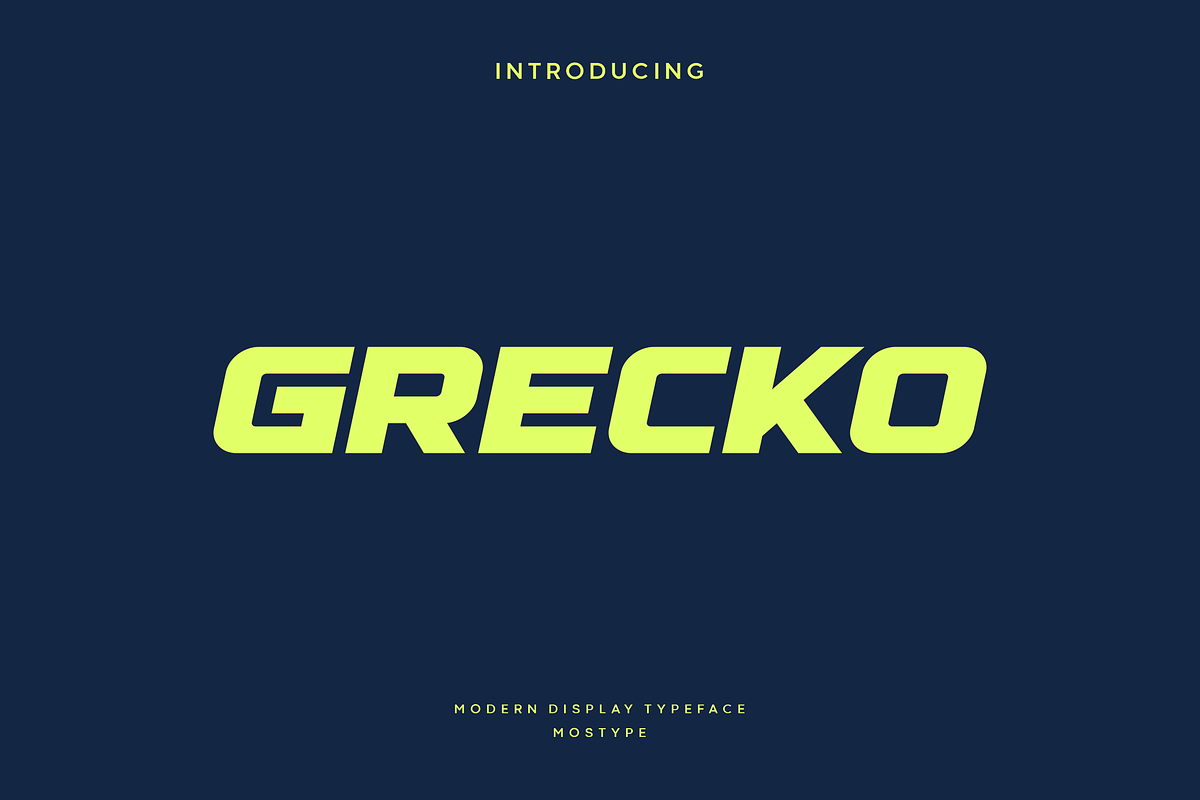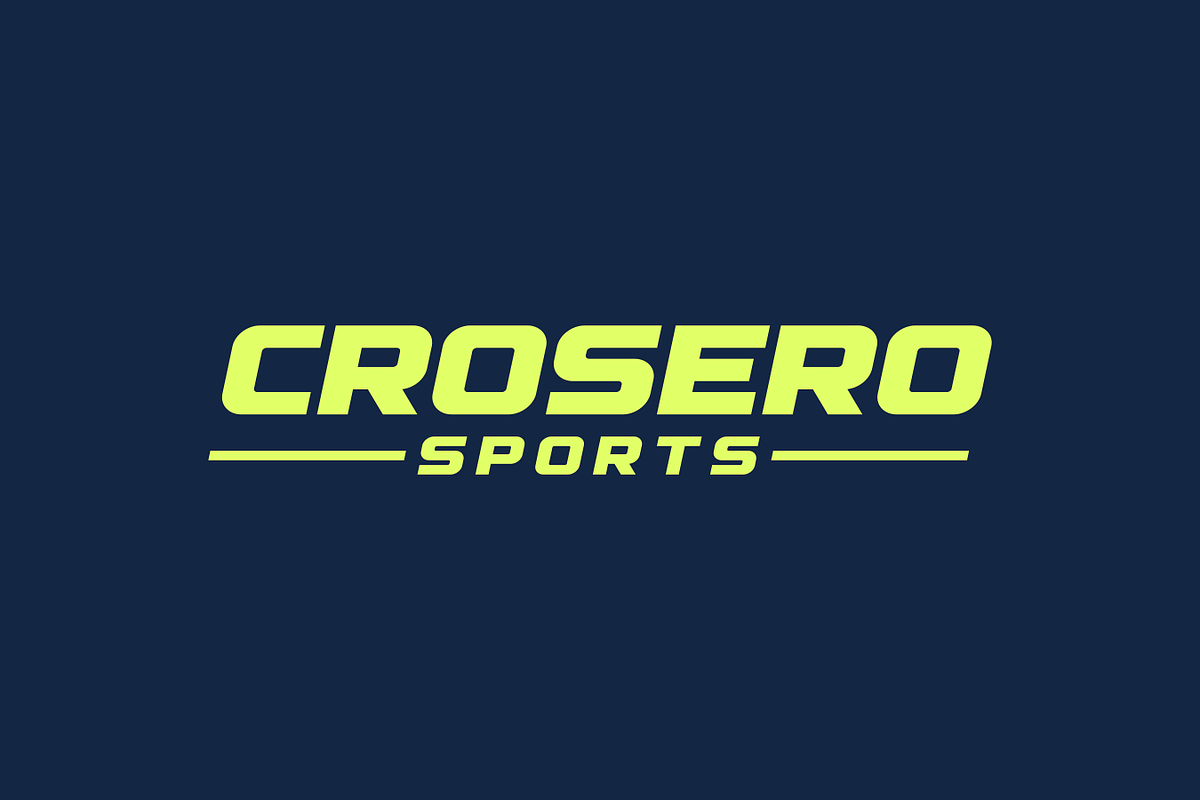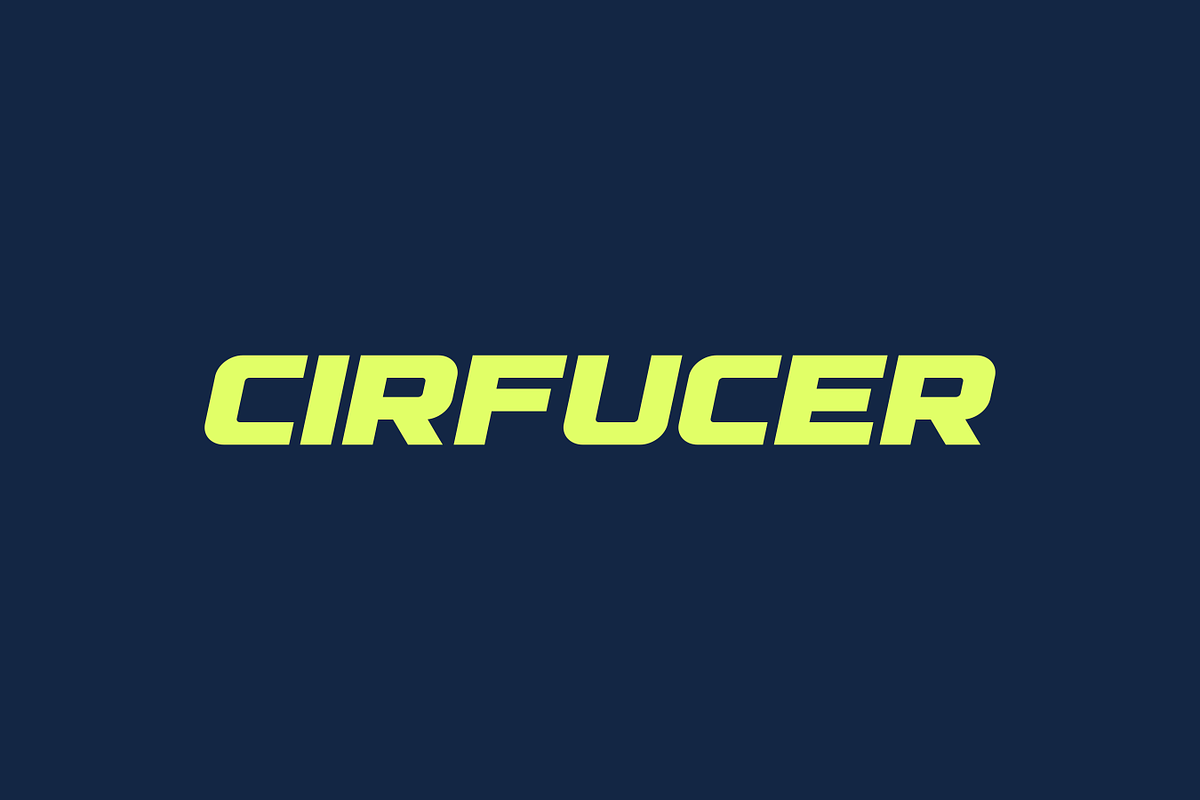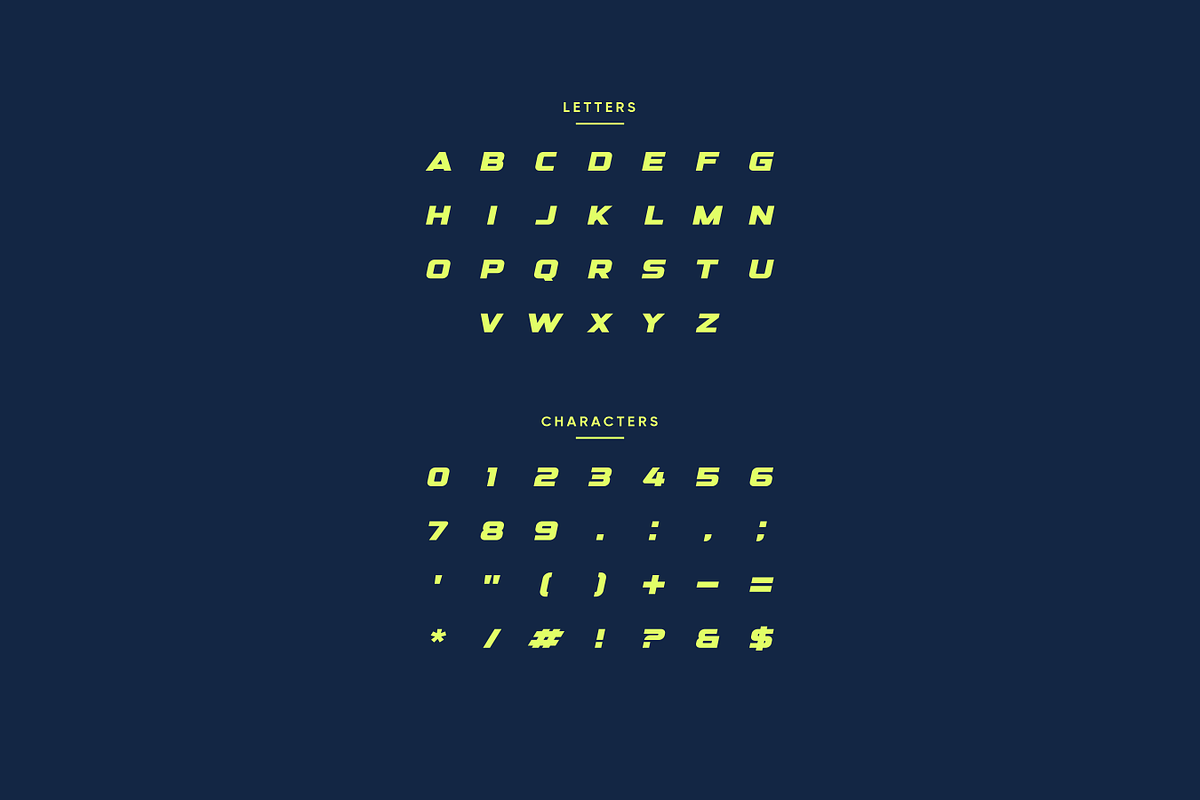
Grecko - Modern Sport Typeface
Grecko is display sports font with visual elegance, smooth curves making your work look true and attractive. This font is suitable for a wide variety of projects such as invitations, logo, branding, magazine, photography, card, product packaging, mugs, quotes, poster, label, signature and more. Font which is perfect for all business sectors including personal projects, studio, corporate, creative agency, industrial, company, etc.